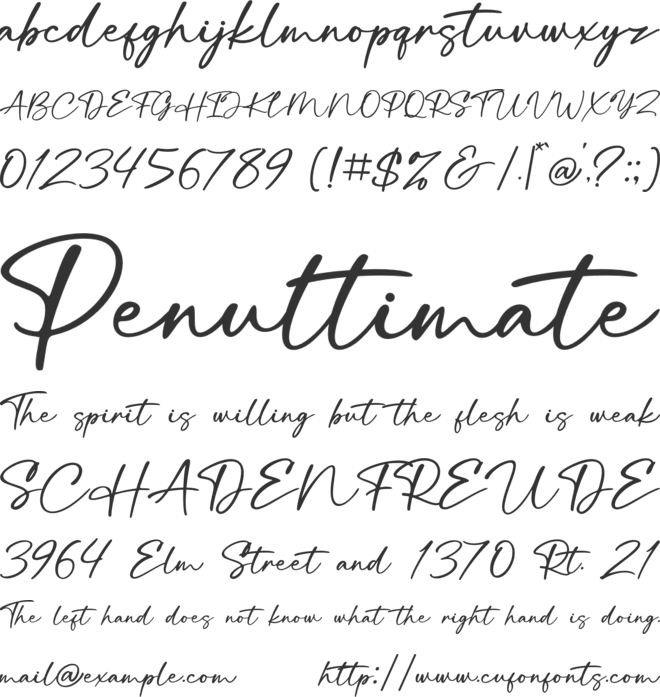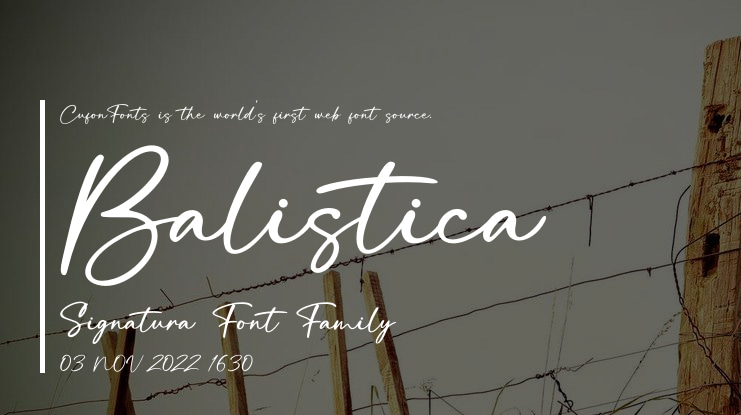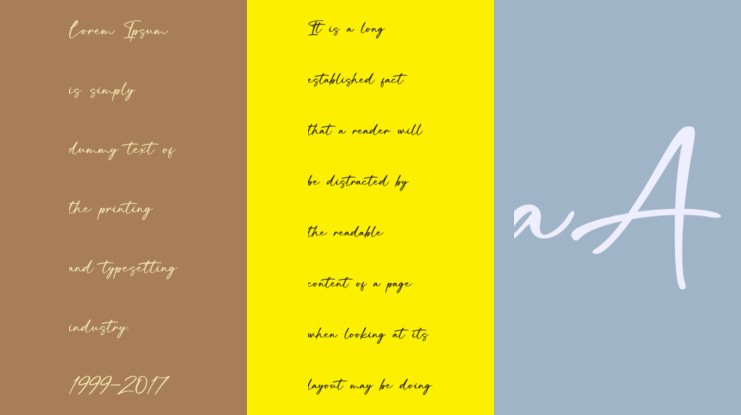
Balistica Signatura Font
Bery Arisandi , Basnistudio
INTRODUCING Balistica Signatura a Elegant Script Font
Balistica Signatura a Elegant Script Font that adds a elegant, versatile touch to everything from branding and social media to invitations and packaging.